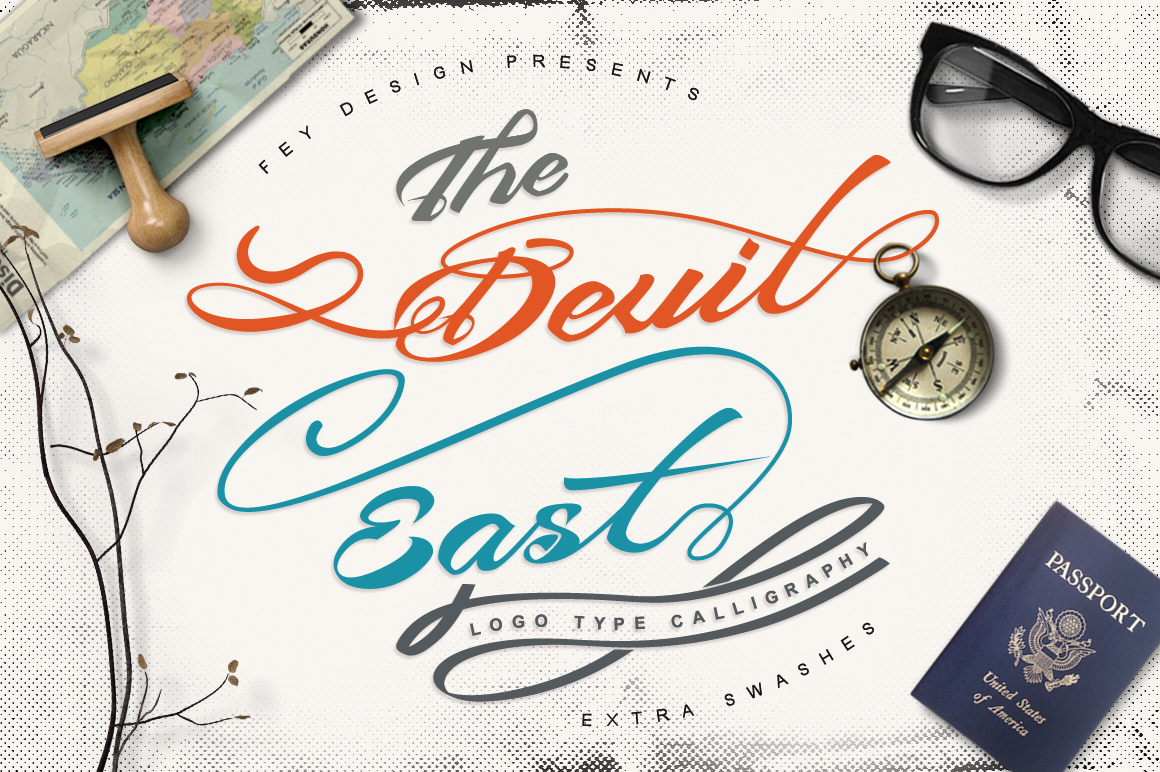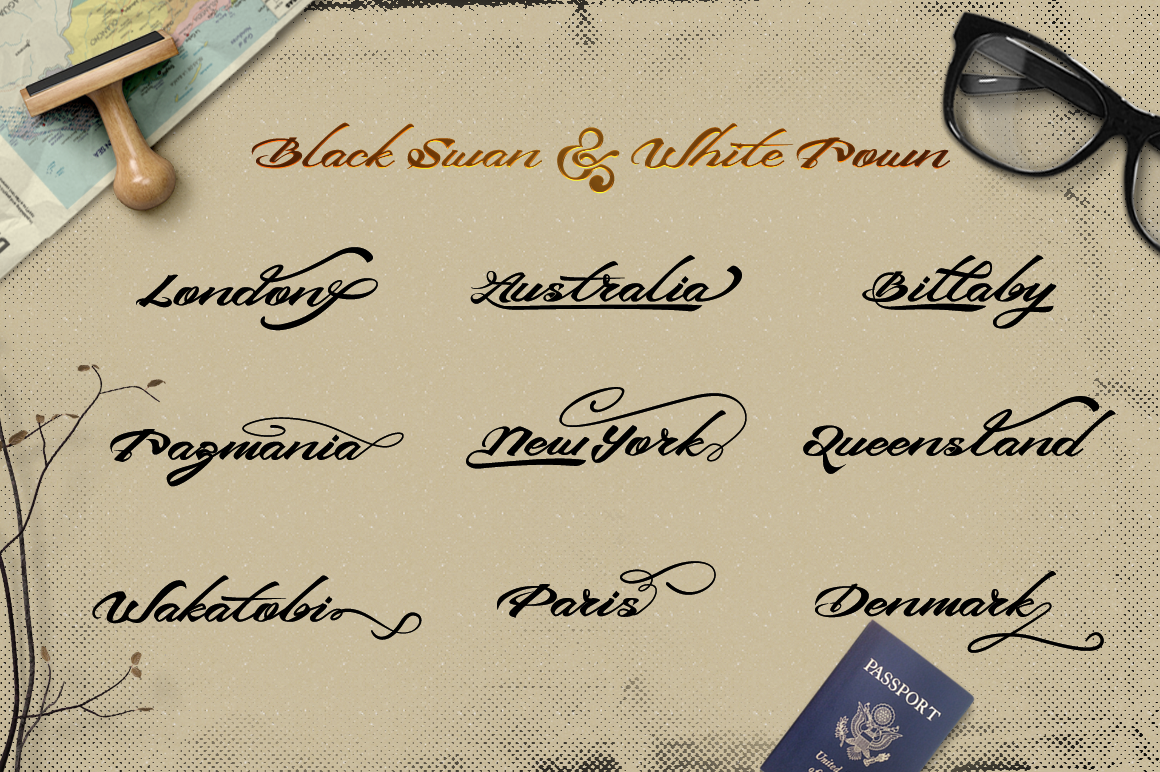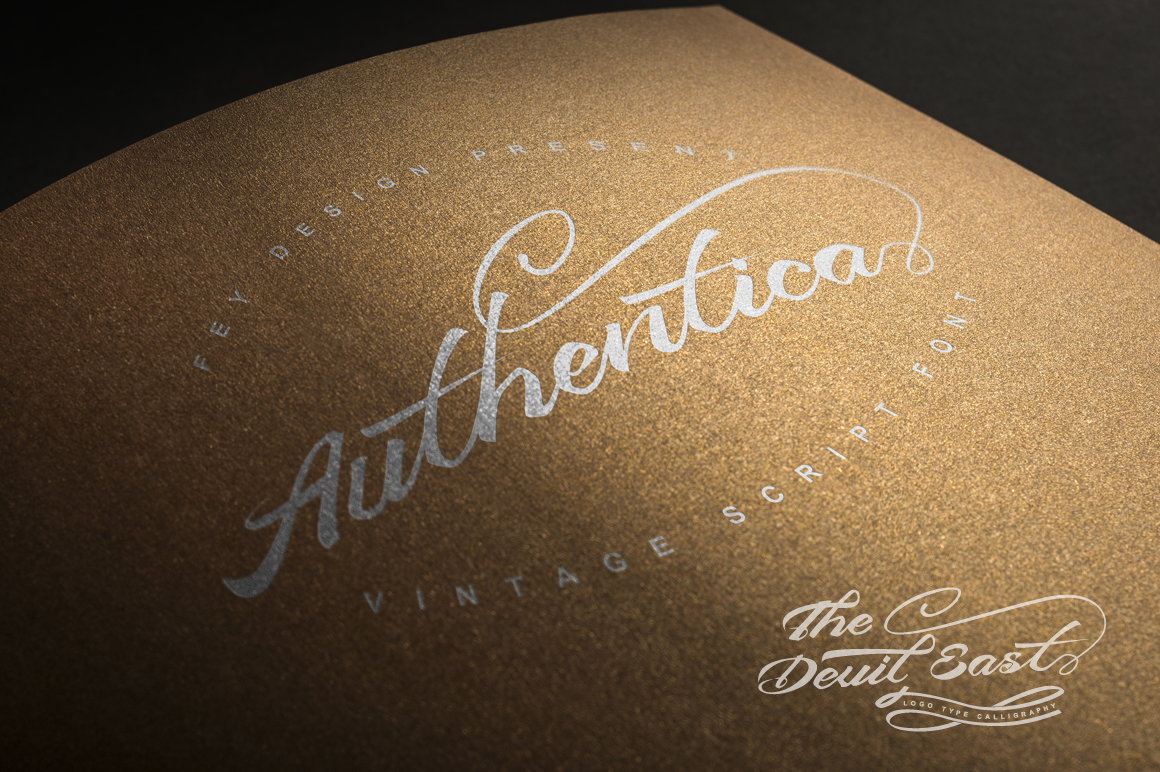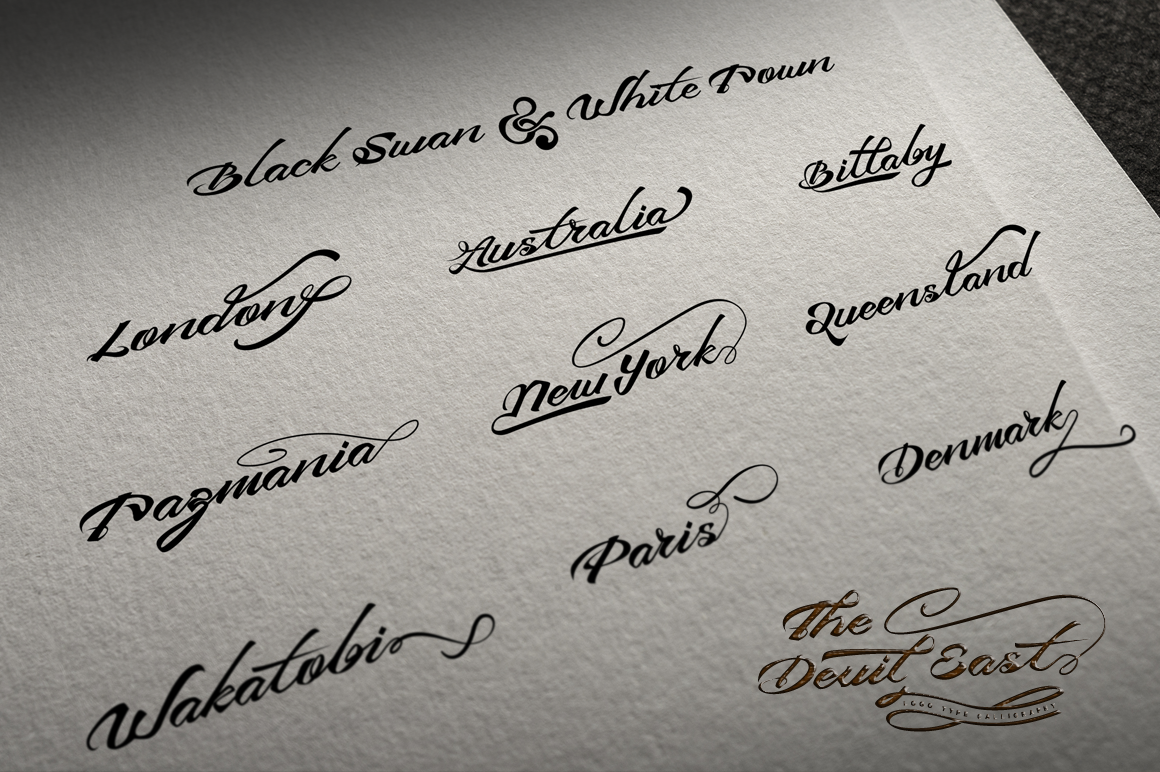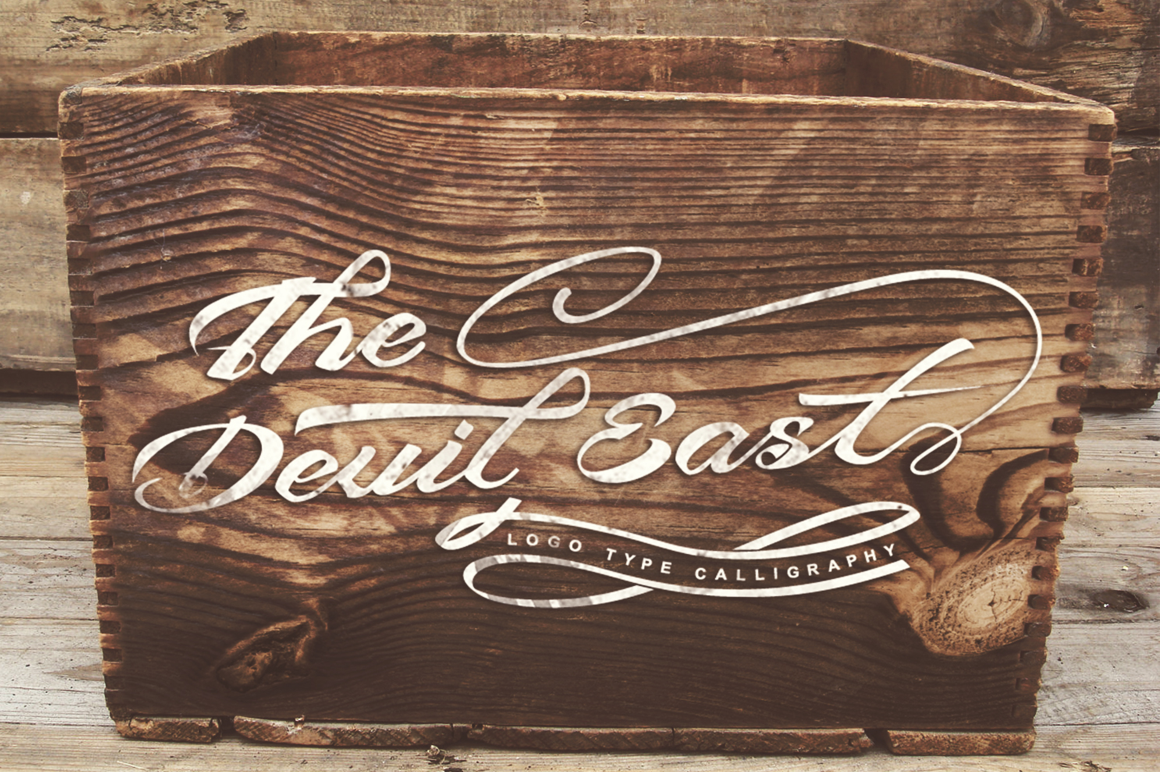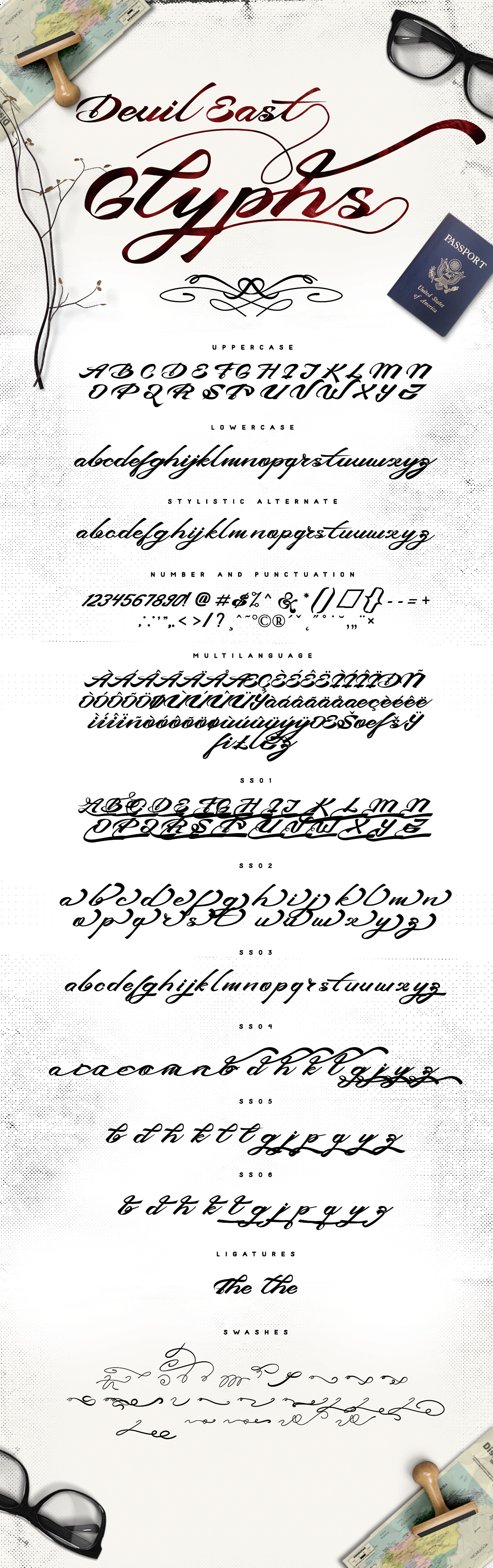
Devil East Font
About Devil East Font
Devil East is a beautiful logotype script font, ideal for a wide range of designs. This font is great for displays, and has tons of decorative characters so you can maximize your typographic design projects.